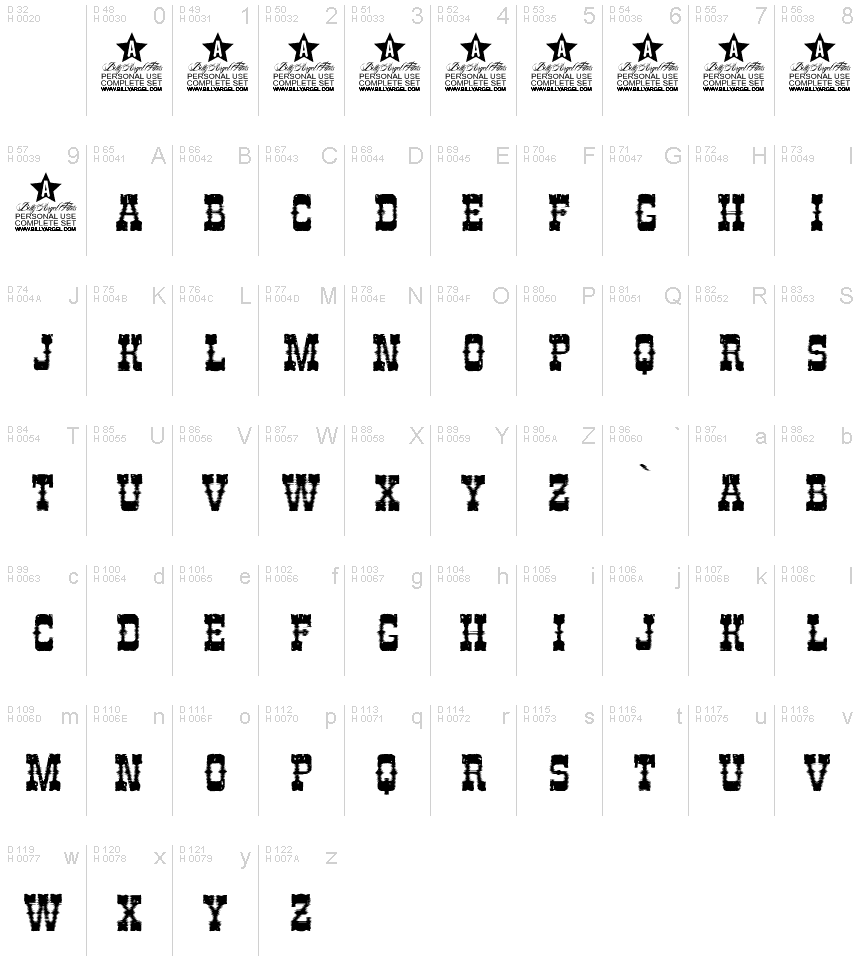
TIMEMACHINE HALLOWEEN PERSONAL USE Bold
Timemachine Halloween is a western-style halloween font designed by Billy Argel.
Two font files, one of them with 10 classic pictures of horror monsters in lowercase letters, a b c d e f g h i j